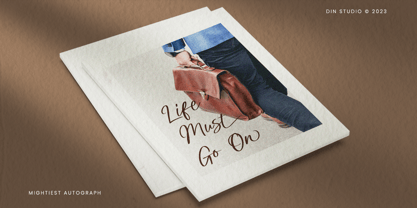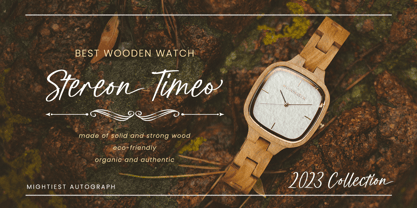
Mightiest Autograph
by Din Studio
Digital designs seldom show personal touches to make them stand out and to give unique displays. Generic fonts are no longer enough to do so. You need something special to make great impacts on your work. Therefore, a handwritten font can be the perfect solution to such a necessity. This is the Mightiest Autograph.
Mightiest Autograph is a handwritten font in a signature looking style to add elegant, personal nuances on your designs. The curves and wipes in the swinging ends of the letters are the main characters. Like the other cursive fonts, each letter is connected to one another to make the font legible. The letters’ proportions are made different for a more artistic looking style applicable for such romantic texts. You can apply this font for any text sizes due to its great legibility. Additionally, you can enjoy the available features here.
Features:
• Alternates
• Ligatures
• Multilingual Supports
• PUA Encoded
• Numerals and Punctuations
Mightiest Autograph fits best for various design projects, such as brandings, posters, banners, invitations, greeting cards, magazine covers, quotes, printed products, merchandise, logos, social media, etc. Find out more ways to use this font by taking a look at the font preview.